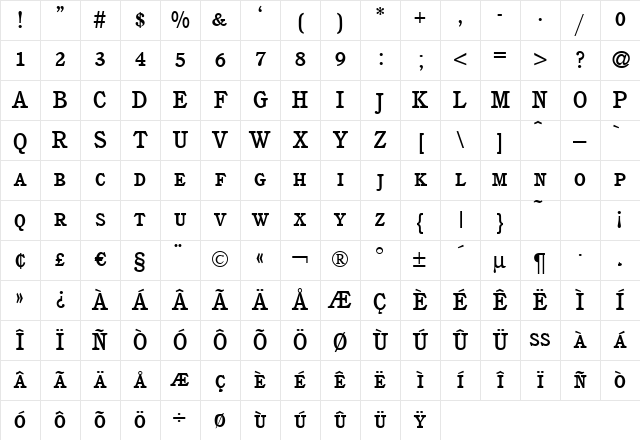
C851-Roman-Smc Bold Free Font
Complete C851-Roman-Smc Bold glyph index. Displaying only characters natively supported by C851-Roman-Smc Bold font.
Design Context for C851-Roman-Smc
C851-Roman-Smc is a composed and adaptable typeface that performs quietly and consistently across a wide range of design contexts. Its bold stroke weight gives it real presence on the page.